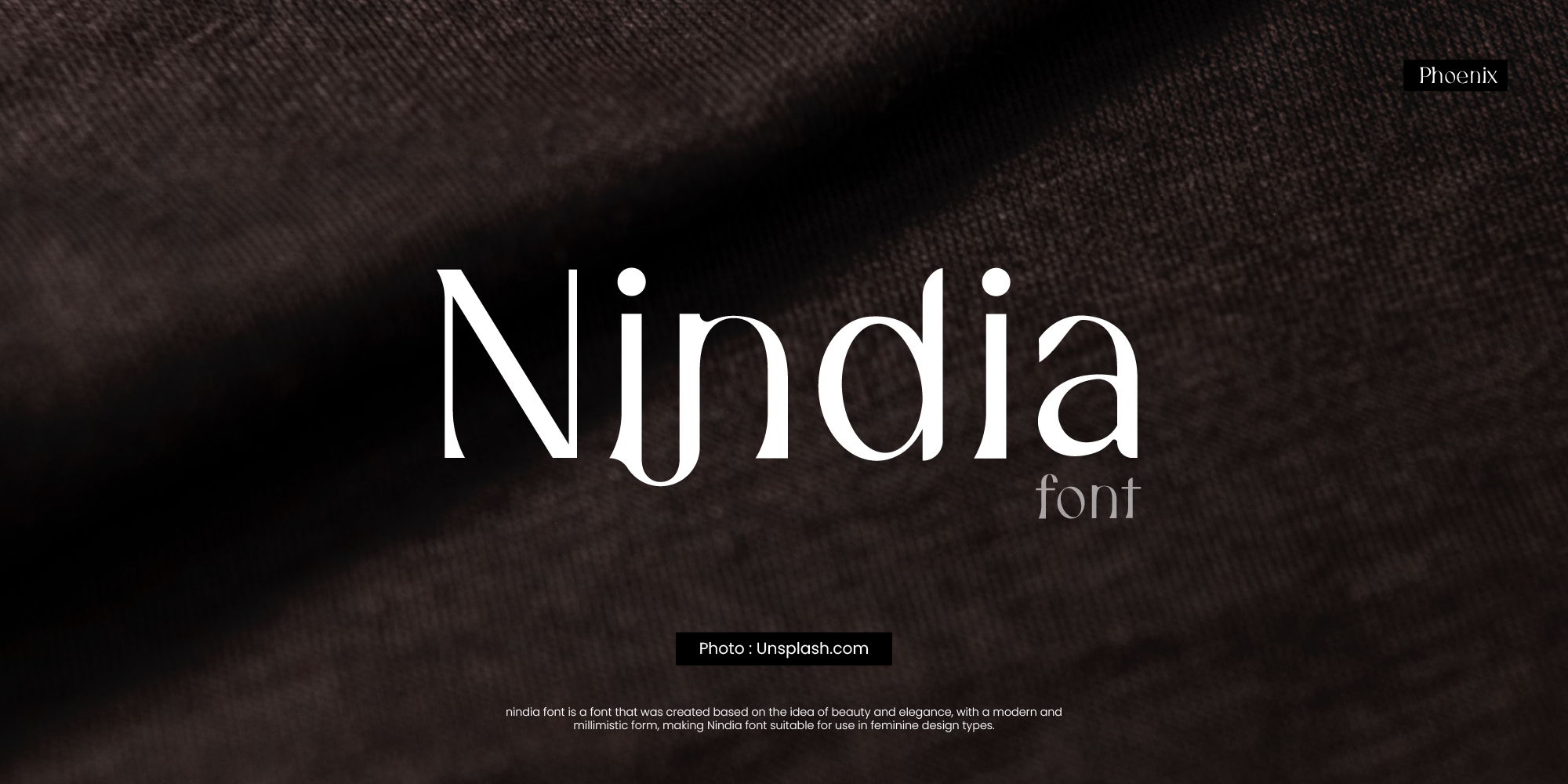
The Nindia Font excels in various design applications including multicultural brand identities, international restaurant marketing, diverse community communications, global festival promotions, cultural fusion projects, inclusive education materials, worldly travel branding, cosmopolitan lifestyle designs, heritage celebration events, and contemporary cultural projects that demand international sophistication and cross-cultural elegance.
What makes the Nindia Font exciting is its harmonious blend of global influences and contemporary design that creates typography perfectly suited for multicultural environments and international communications. This typeface demonstrates exceptional cultural sensitivity through carefully crafted letterforms that honor diverse traditions while maintaining universal appeal and modern functionality. The font's international personality makes it perfect for organizations seeking to communicate global awareness, cultural appreciation, and inclusive values through typography that bridges different cultures while celebrating the beauty of diversity in contemporary design.
The Nindia Font family typically includes comprehensive weight variations that accommodate diverse linguistic requirements, featuring extended character sets supporting multiple writing systems and cultural symbols. These family options often include stylistic alternates with cultural influences, international ligatures, and global decorative elements that provide designers with comprehensive tools for creating authentically multicultural typography that honors different traditions while maintaining contemporary design standards and cross-cultural accessibility.
Cultural organizations and international brands consistently select Nindia Font Free Download for projects requiring typography that communicates global sophistication and cultural inclusivity. This typeface delivers exceptional performance in multicultural marketing, international communications, and diverse community branding where demonstrating cultural awareness and establishing inclusive appeal is essential for global audience engagement. The font's worldly character makes it particularly effective for educational and tourism applications. Download Nindia Font Free Download today to access this globally-inspired typeface that transforms international communications with its multicultural sophistication and inclusive elegance, creating compelling cross-cultural experiences that celebrate the richness of global diversity while maintaining contemporary design excellence and universal accessibility for worldwide audiences.